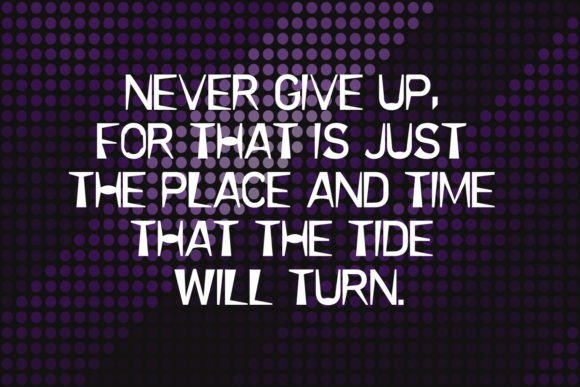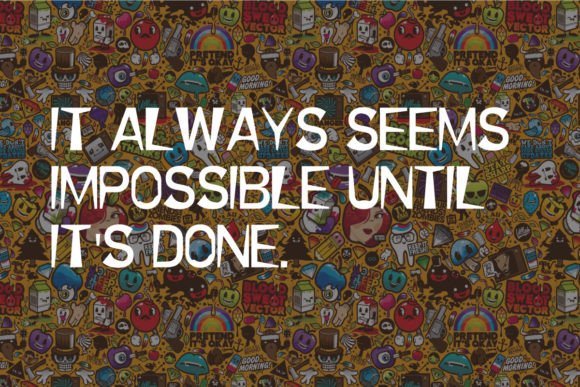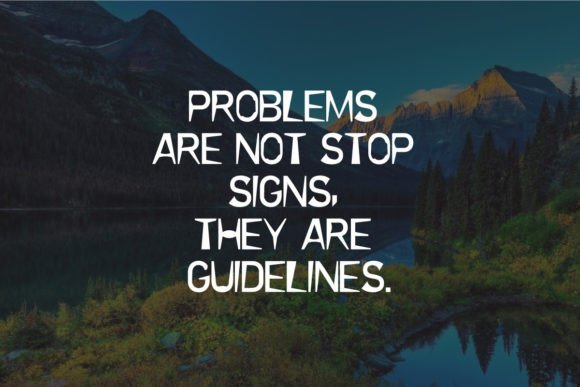
Discovering the Perfect Design Companion: Rising Pop Font
As a designer, there’s nothing quite like that ‘aha’ moment when you stumble upon the perfect font for your project. You’re pouring over a design resource, scrolling through pages of fonts, and suddenly – it’s there. The perfect combination of style and functionality that brings your creative vision to life. For many designers, that moment came when they discovered the Rising Pop Font.
This fun and playful display font is a little bit quirky, making it incredibly adept in a wide variety of contexts. With its transparent background and high-quality design, it’s the perfect addition to any creative project. Whether you’re working on a branding project, a social media campaign, or simply a fun design to share with friends, the Rising Pop Font is sure to bring a smile to your face.
Rising Pop Font
- High-quality, modern font design ideal for creative projects and designs.
- Designed with a clean and minimalist aesthetic, perfect for use in logos, typography, and other design elements.
- Unique characteristic: The font’s bold and playful feel makes it perfect for use in rising pop culture designs, such as music and entertainment projects.
Honest Review: Rising Pop Font
As a designer, I’m always on the lookout for fresh and exciting design resources. The Rising Pop Font is one of the latest additions to my collection, and I’m excited to share my thoughts on it.
- ✨ Unique and playful style that’s perfect for creative projects.
- ✨ High-quality font files that are crisp and clear.
- ⚠️ Limited character set, which may not be ideal for longer blocks of text.
- ⚠️ Not as versatile as some other fonts in my collection.
Overall, I’m impressed with the Rising Pop Font. It’s a great choice for designers working on creative projects that require a fun and playful touch. While it may have some limitations, I think it’s well worth the free download. I’d definitely recommend it to anyone looking for a unique font to add some personality to their designs.
Rising Pop Font is suitable for various creative projects, including:
- Social media graphics and ads
- Presentation templates and slides
- Logos and branding materials
- Typography-based designs and graphics
Getting the Most Out of Rising Pop Font
To get the most out of Rising Pop Font, experiment with different font sizes, colors, and combinations. Use the font’s transparent background to create a seamless look and customize it to fit your design needs.